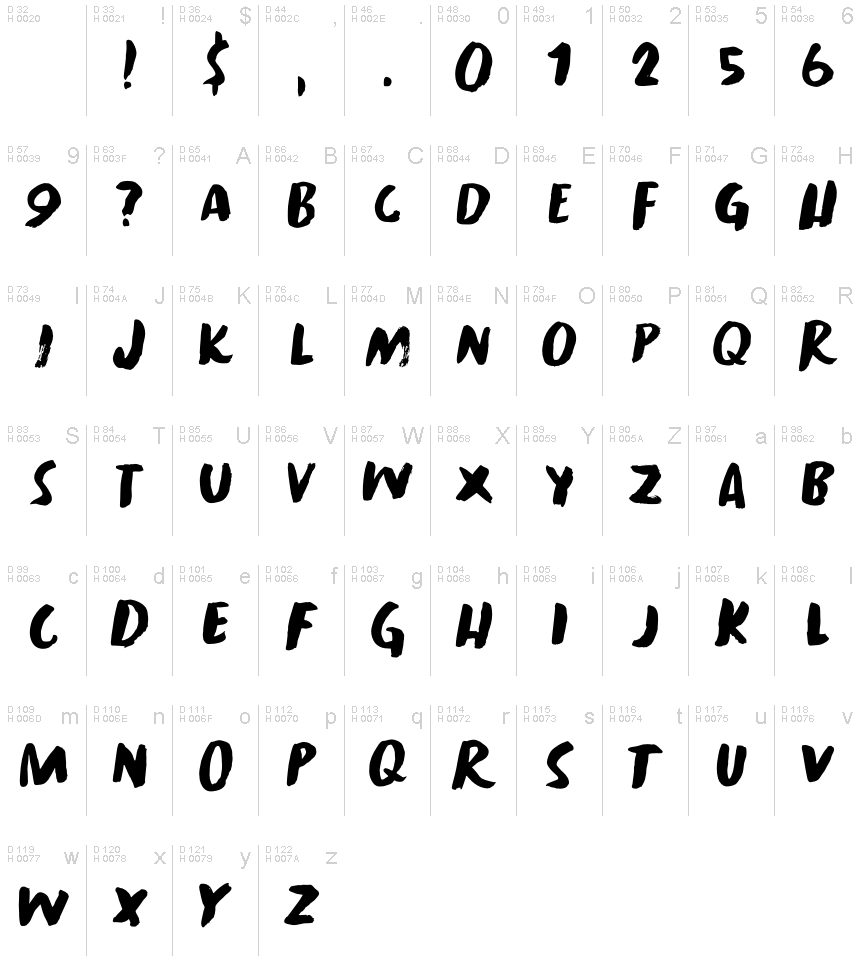
Cinema Outfit DEMO Regular
Cinema Outfit captures the dynamic essence of brush lettering with its bold, expressive strokes that evoke a sense of creativity and movement. Each character exhibits an artistic flair, making it visually striking and inviting. The font's robust, energetic appearance lends itself to eye-catching headlines and promotional materials.
Ideal for applications in film promotions, artistic projects, or trendy branding endeavors, Cinema Outfit stands out in any design context. Its playful yet assertive character elevates visual communication, ensuring messages resonate with authenticity and style. Whether used on posters or social media graphics, this font makes a memorable impact that draws attention effortlessly while reinforcing a brand's vibrant personality.